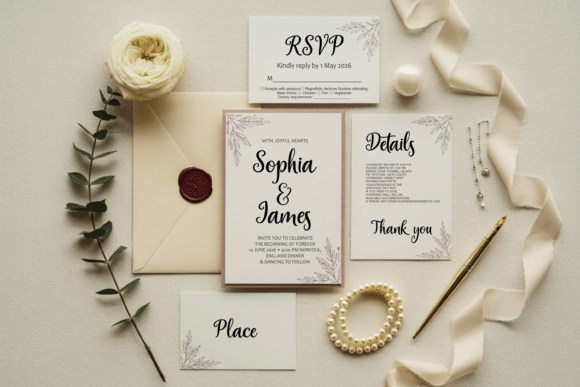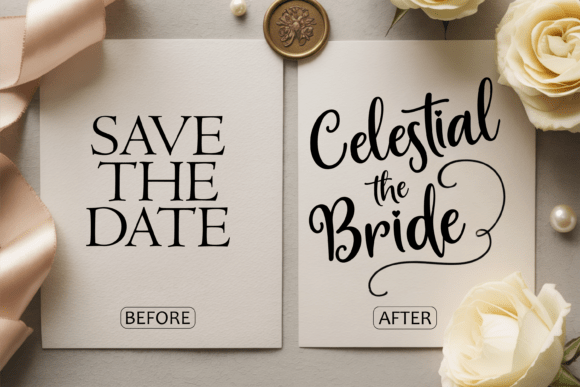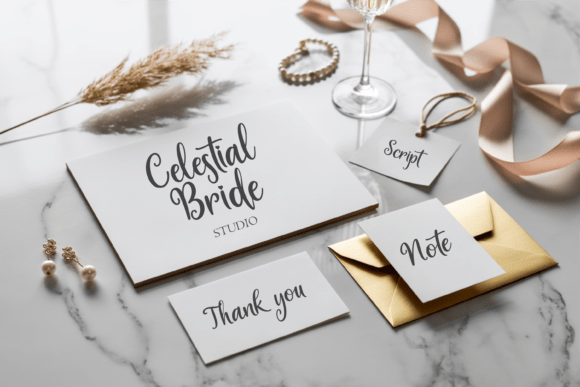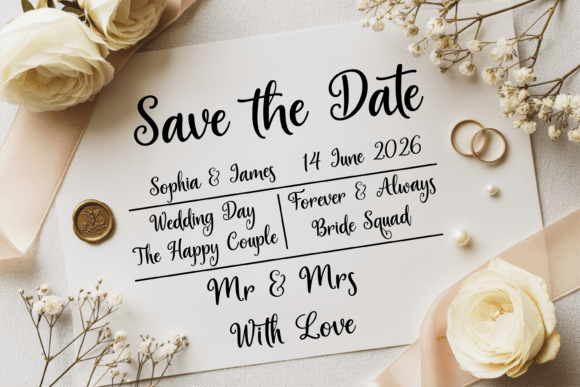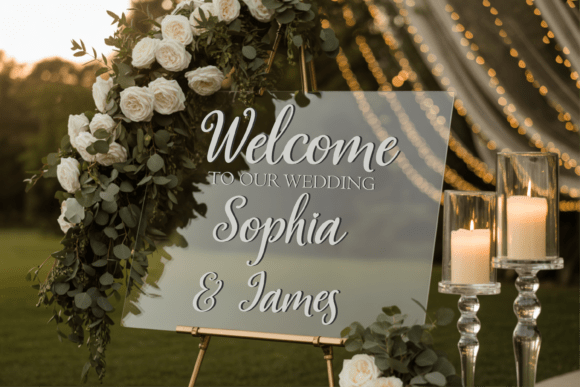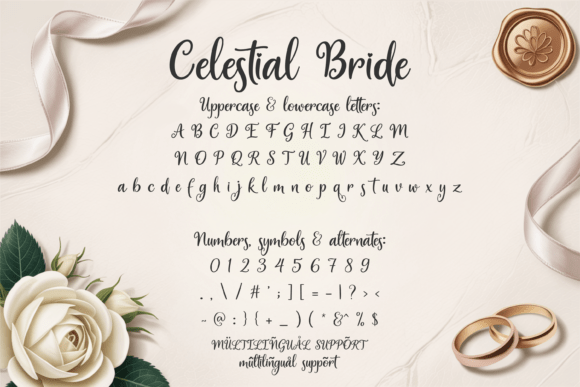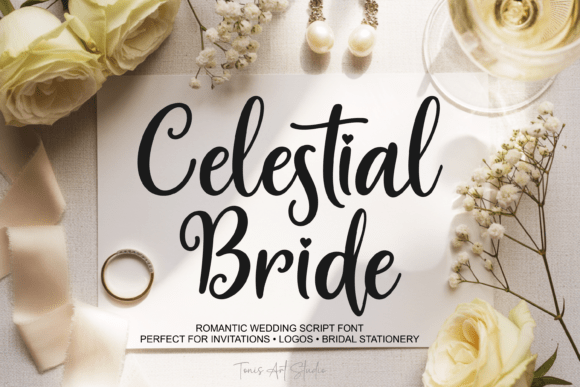
Celestial Bride Font: Elevate Your Wedding Designs with Timeless Elegance
Are you a bride, wedding organizer, or creative enthusiast seeking a font that embodies the essence of love and sophistication? Look no further than the Celestial Bride Font, an enchanting wedding script font that will transform your designs into timeless masterpieces. This exquisite font is akin to a love sonnet, draped in elegance and warmth, making it the ultimate choice for those who desire a touch of luxury and personalized approach in their wedding designs.
The Essence of Celestial Bride Font
The Celestial Bride Font boasts a sophisticated interplay of elegant swirls and gentle handwriting, imparting a touch of warmth and sentiment to every word. Its refined and poised vibe makes it perfect for wedding designs that exude luxury and romance. Whether you’re designing wedding invitations, save-the-dates, vow books, or table identifiers, this font seamlessly infuses the wistful forever sentiment without any ostentatious display.
The versatility of the Celestial Bride Font knows no bounds. It’s not just limited to wedding designs; it can also be used for:
- Wedding invitations and save-the-dates
- Vow books and ceremony programs
- Table identifiers and event placards
- Menus and bridal shower adornments
- Contemporary wedding logos and branding
- Small business branding and boutique logos
Why Choose Celestial Bride Font?
So, what makes the Celestial Bride Font a top choice among designers and crafters? Here are a few reasons:
- Timeless Elegance: The font’s classic design ensures that your wedding designs will remain stylish and relevant for years to come.
- Luxury and Sophistication: The Celestial Bride Font exudes a sense of luxury and refinement, perfect for upscale weddings and events.
- Personalized Approach: The font’s elegant swirls and gentle handwriting add a personal touch to your designs, making them truly special.
- Memorable Impact: The Celestial Bride Font is sure to leave a lasting impression on your guests and clients.
Design Tips and Tricks
To make the most of the Celestial Bride Font, here are some design tips and tricks:
- Pair with Neutral Colors: Combine the font with neutral colors like ivory, white, or champagne to create a romantic and elegant look.
- Add Floral Accents: Incorporate floral accents and greenery to enhance the font’s whimsical and romantic feel.
- Experiment with Ligatures: Take advantage of the font’s ligatures to create unique and creative typography.
In conclusion, the Celestial Bride Font is a stunning wedding script font that will elevate your designs to new heights. Its timeless elegance, luxury, and sophistication make it the perfect choice for brides, wedding organizers, and creative enthusiasts seeking to create memorable and impactful designs. With its versatility and endless design possibilities, this font is sure to become a staple in your design collection.